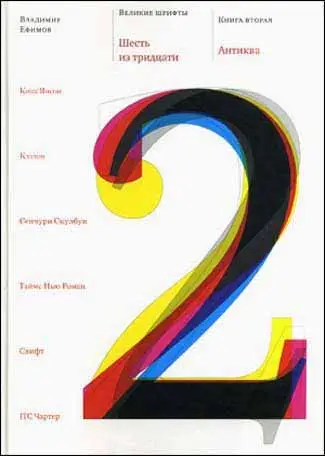
Velikie Shrifty Vladimir Efimov 1
This digital book, Velikie Shrifty Vladimir Efimov 1, is a comprehensive exploration of typography by renowned Russian type designer Vladimir Efimov. Available as an instant PDF download, this Russian-language edition delves into the history and design of classic typefaces, with a focus on the Janson-Antiqua and the work of Nicholas Kis. Ideal for designers, historians, and typography enthusiasts, this book offers deep insights into the evolution of Cyrillic and Latin type.
Book Overview
Velikie Shrifty Vladimir Efimov 1 is part of a series dedicated to great typefaces. This volume examines the Janson typeface, originally cut by Nicholas Kis in the 17th century, and its revival. The book covers Kis’s life, his work in Amsterdam, and the historical context of type design. It is a valuable resource for understanding the intersection of art, history, and technology in typography.
What You’ll Discover Inside
- Detailed history of the Janson typeface and its creator Nicholas Kis
- Insights into the revival of Kis’s typefaces by Stempel and ParaType
- Analysis of Cyrillic adaptations by Vladimir Efimov
- High-quality reproductions of type specimens and historical documents
- Context on the development of civil type in Russia under Peter the Great
Why This Book Matters
This book is essential for typographers and graphic designers interested in the roots of modern type design. It sheds light on a forgotten master and his influence on both Latin and Cyrillic typography. The digital format allows easy access to rare historical material.